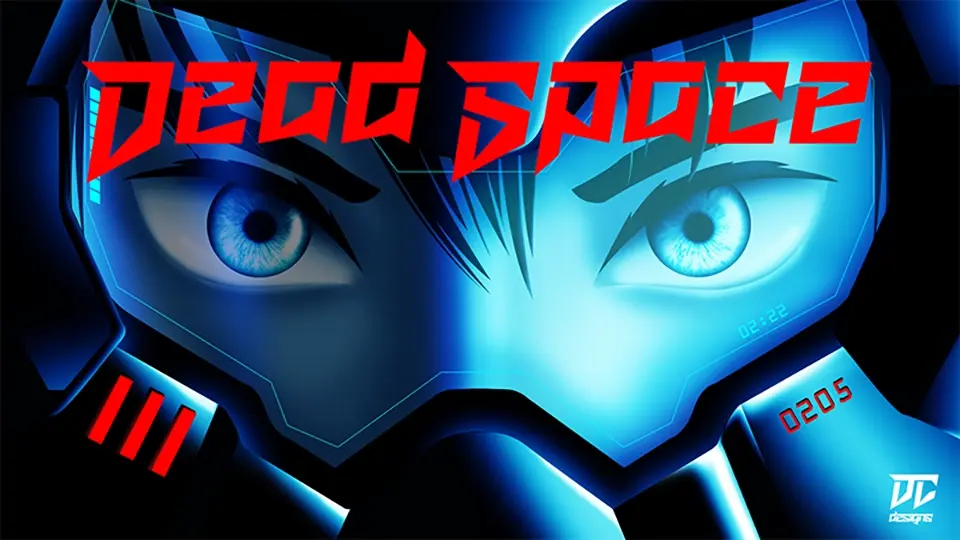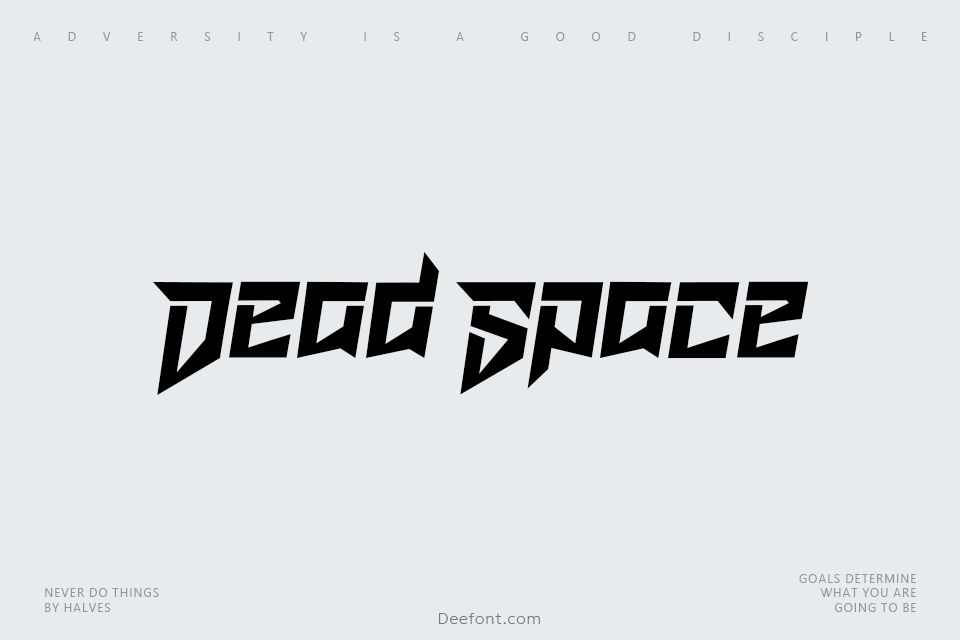
Dead Space Font
Dead Space is a striking geometric sans-serif typeface crafted by DC-designs. This futuristic font features bold, angular letterforms with a sci-fi aesthetic that makes it perfect for tech-related designs, gaming interfaces, and creative projects demanding a contemporary edge. With its clean lines and squared-off shapes, Dead Space delivers legibility alongside visual impact, embodying a modern and futuristic appeal ideal for display and poster work.